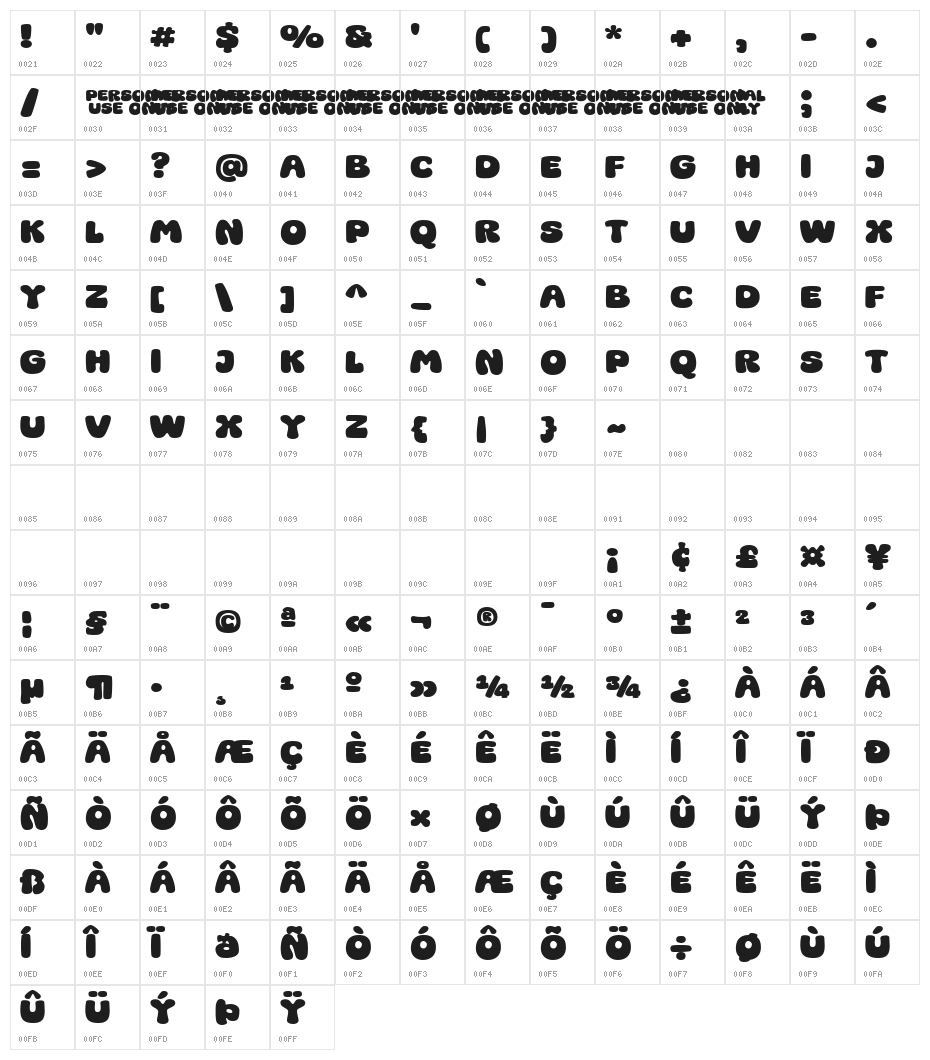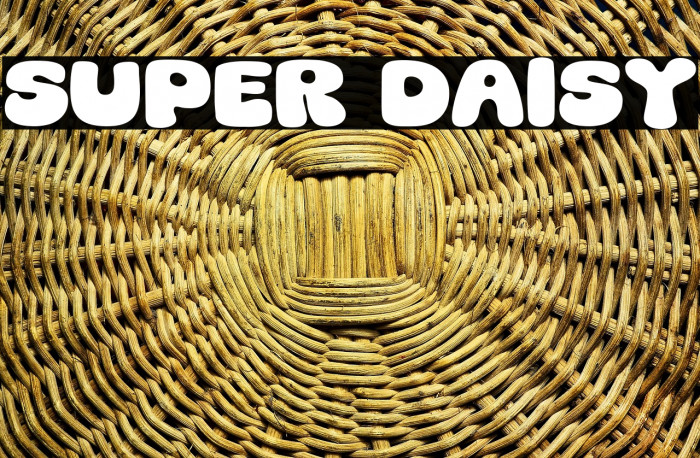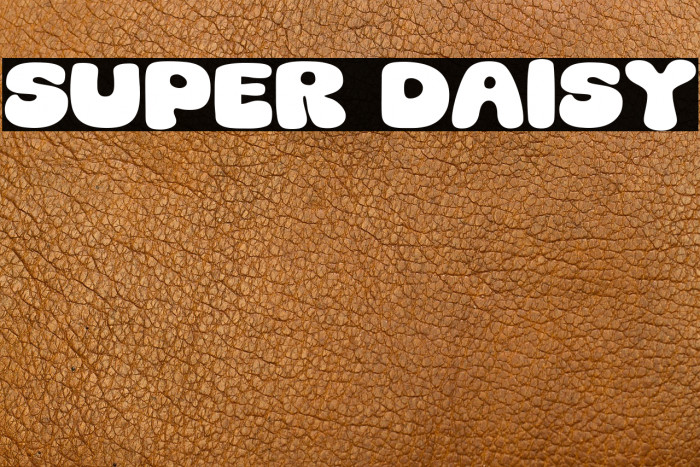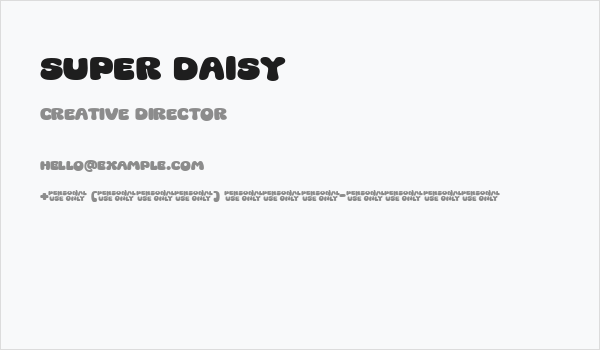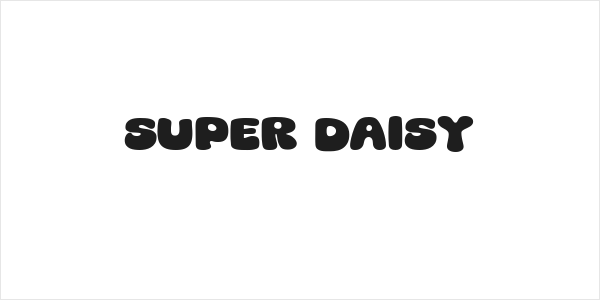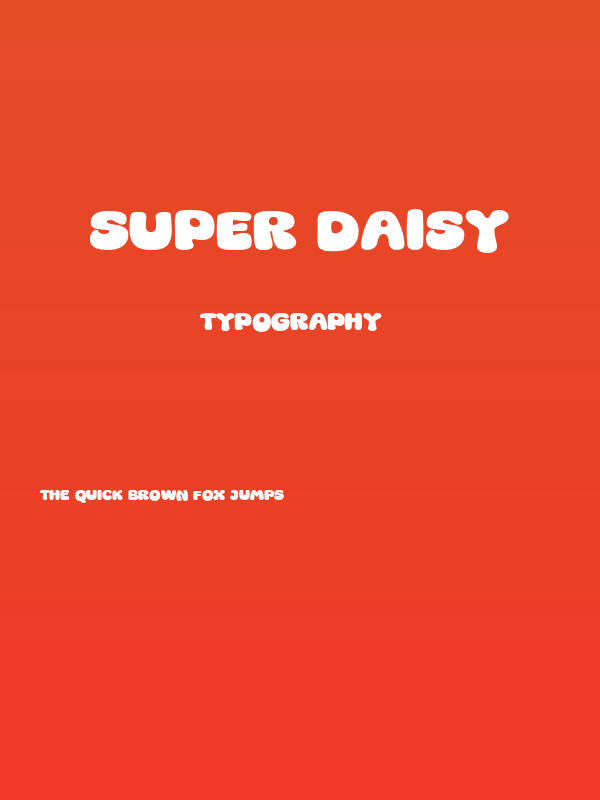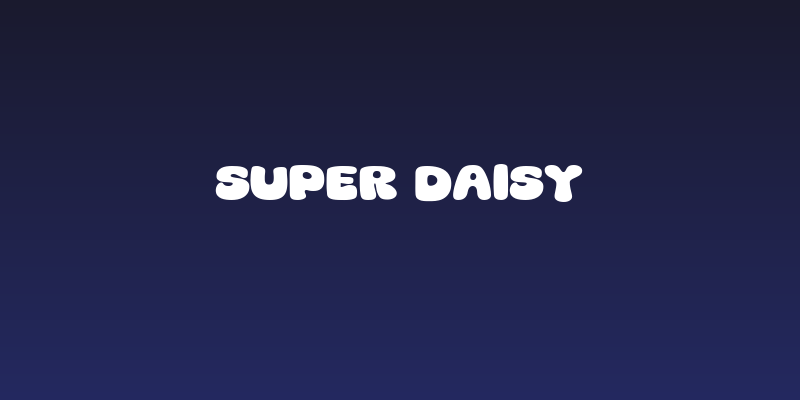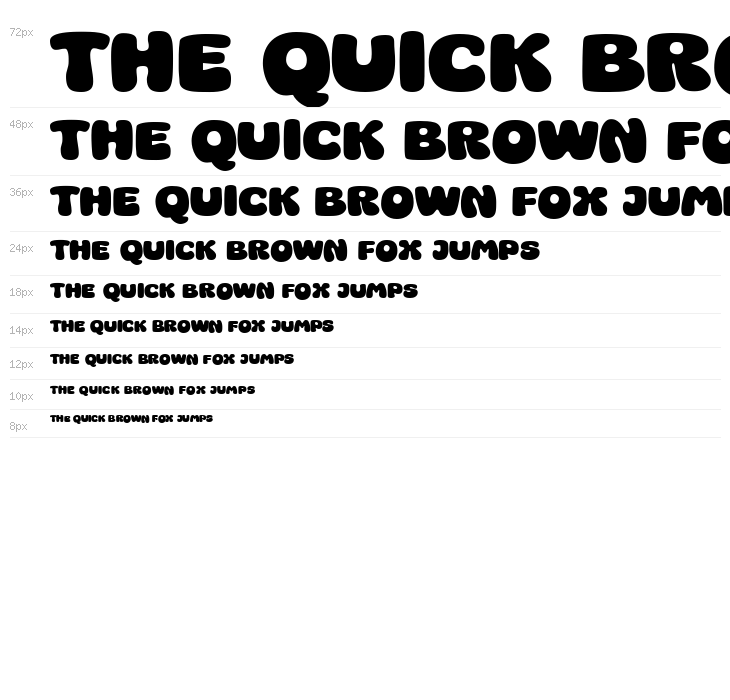
Super Daisy Font
Super Daisy Description
This playful and bold font features rounded, bubble-like characters that convey a sense of fun and whimsy. The letters are thick and have a consistent weight throughout, giving them a strong presence on the page. The style is reminiscent of retro or cartoon aesthetics, making it ideal for designs that require a touch of nostalgia or humor. The font includes both uppercase and lowercase letters, as well as a variety of special characters, ensuring versatility in its application. Its unique appearance makes it stand out, perfect for grabbing attention in any design project.
| Overall Style | Playful, Retro |
| Proposed Projects | Great for children's books, playful branding, party invitations, and retro-themed posters. |